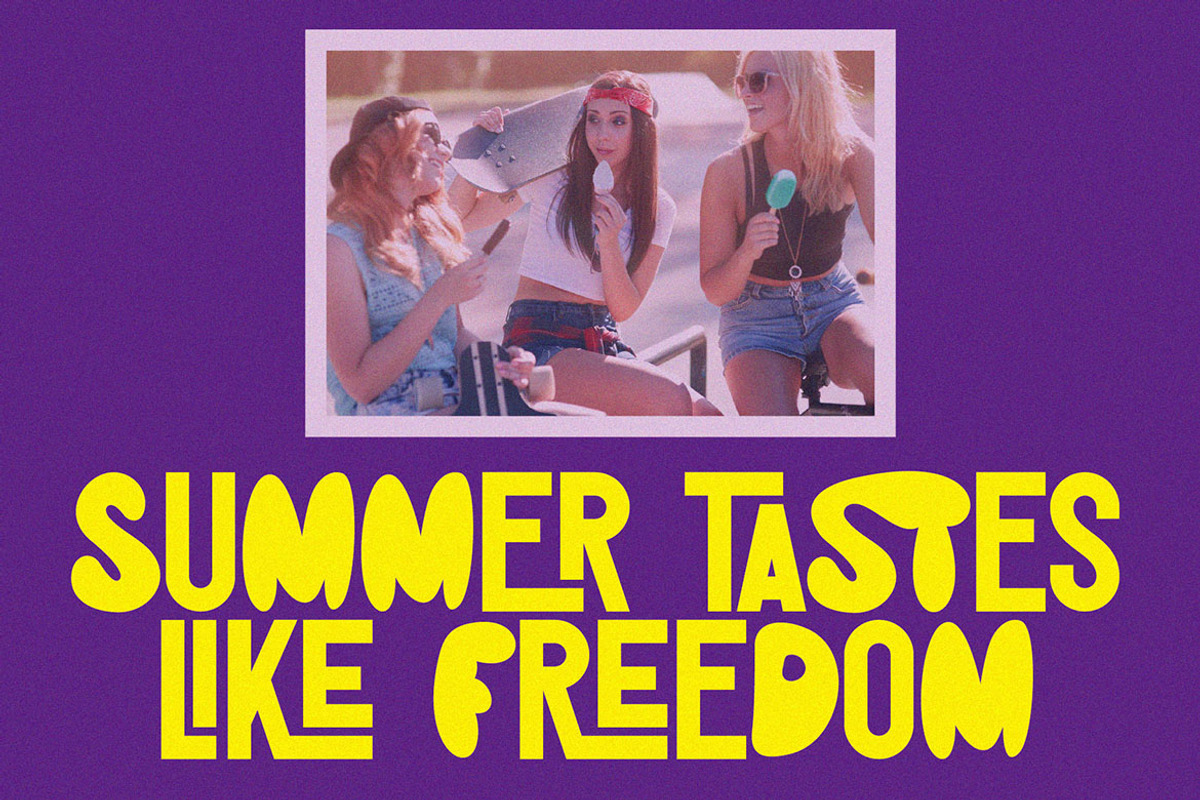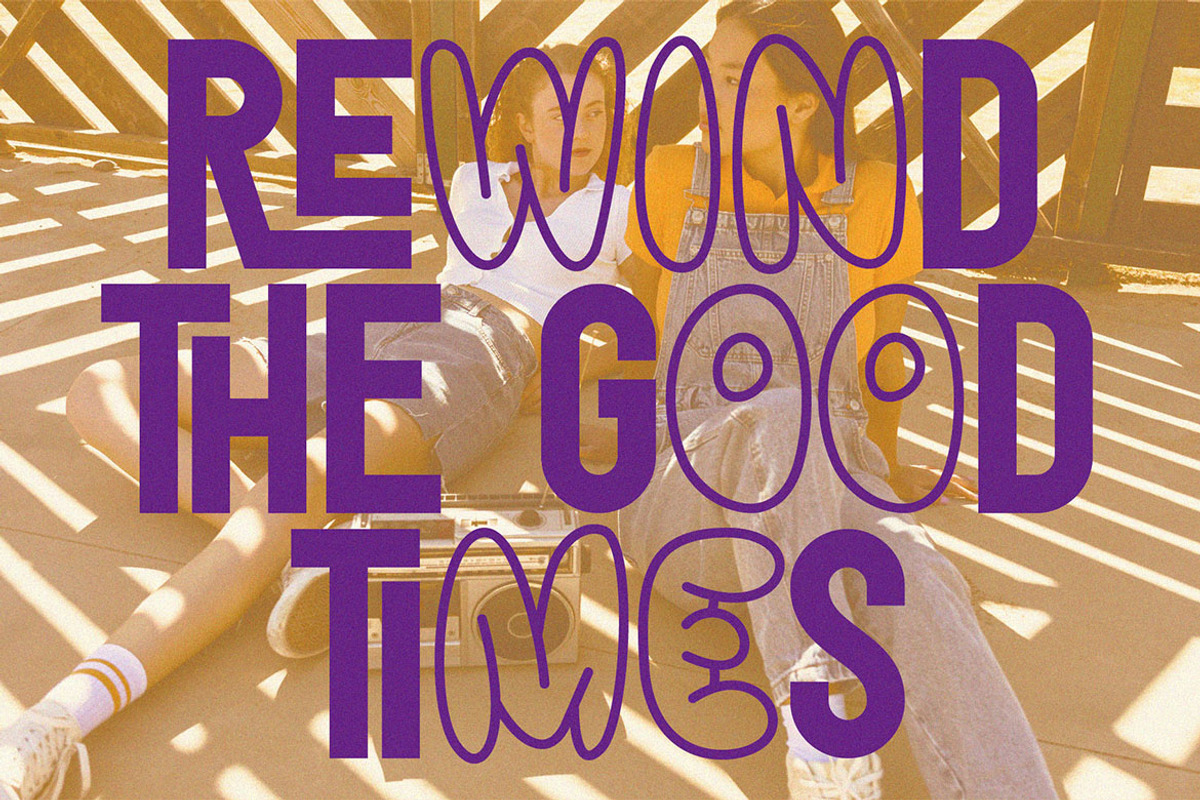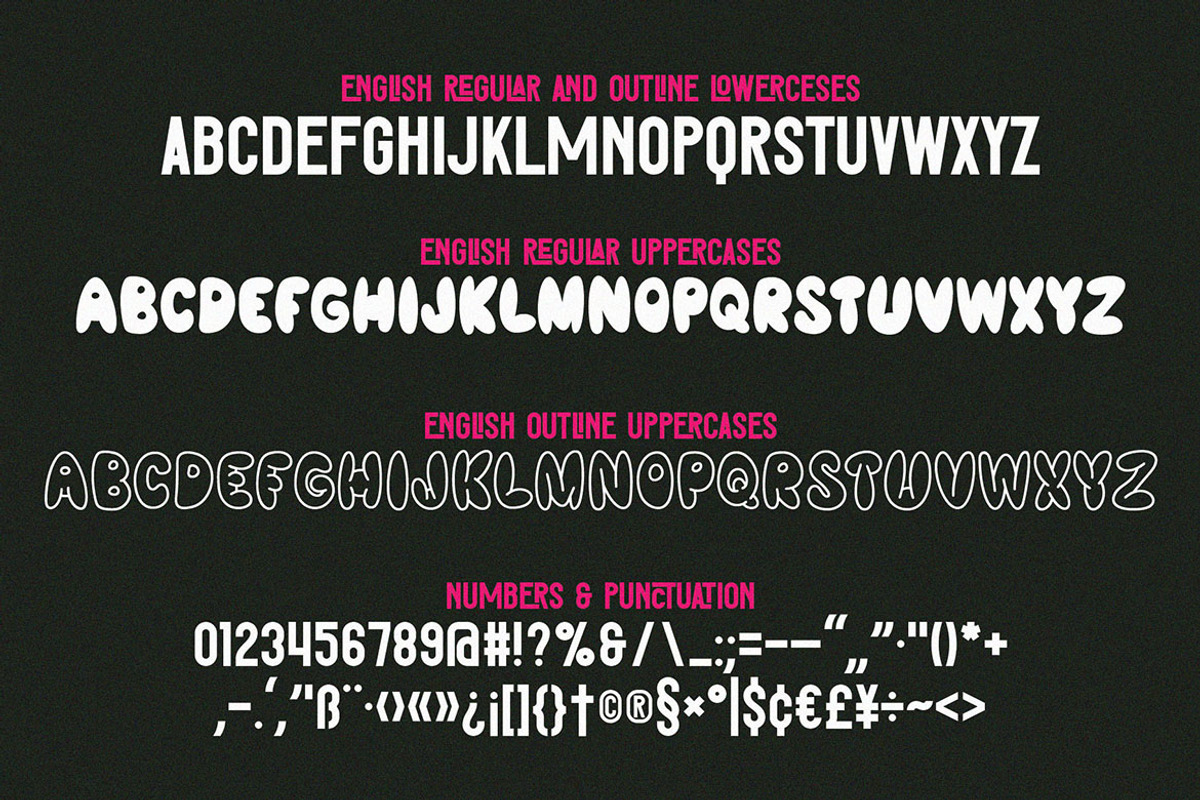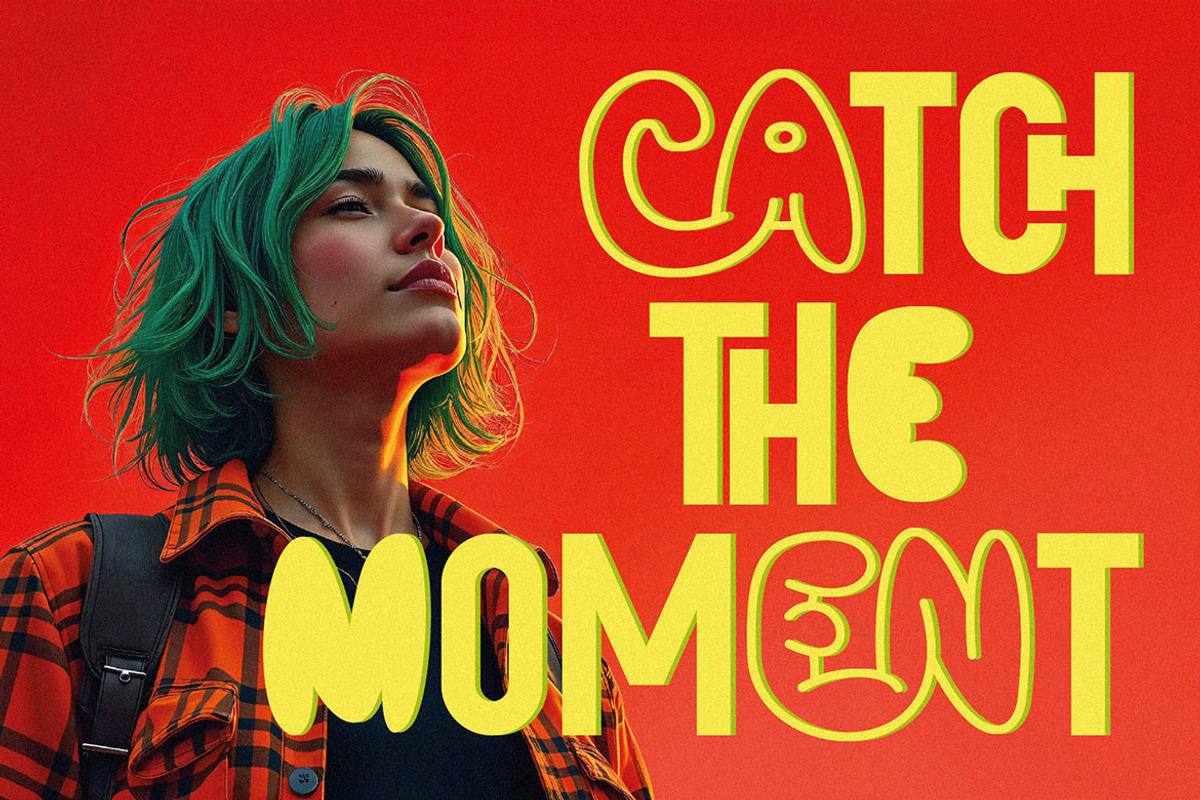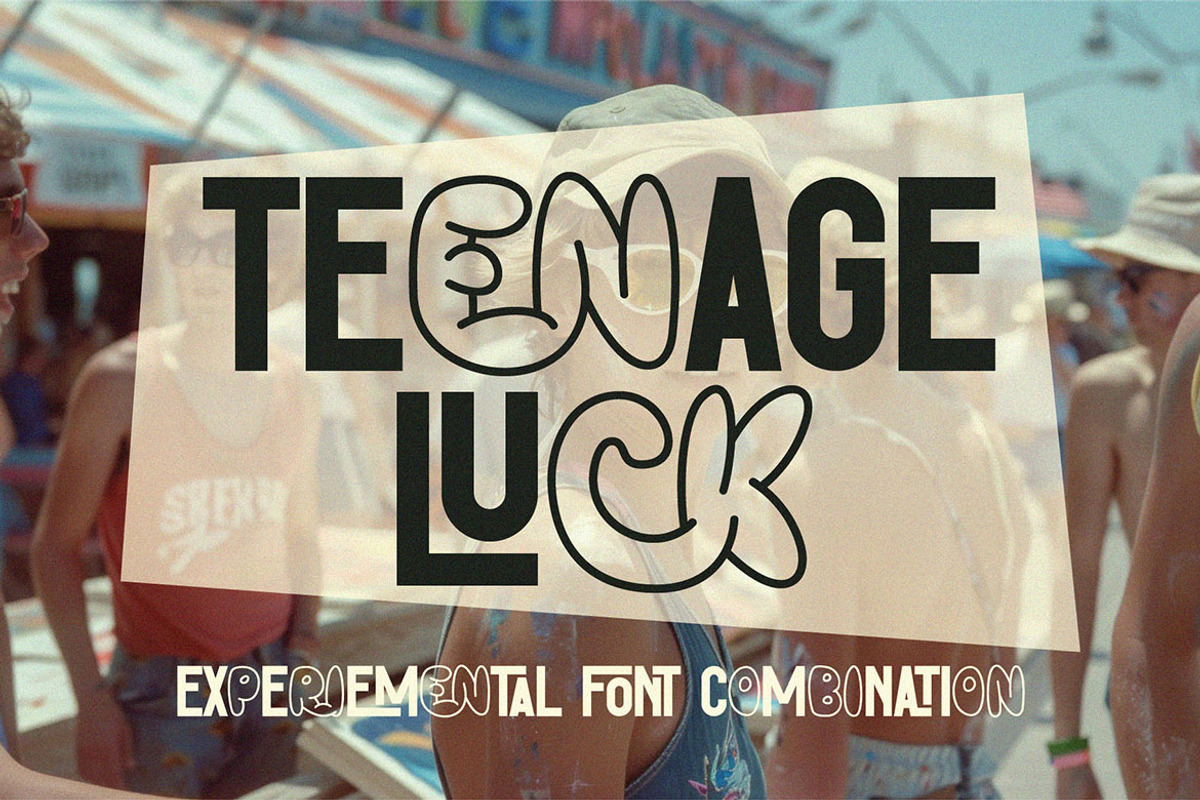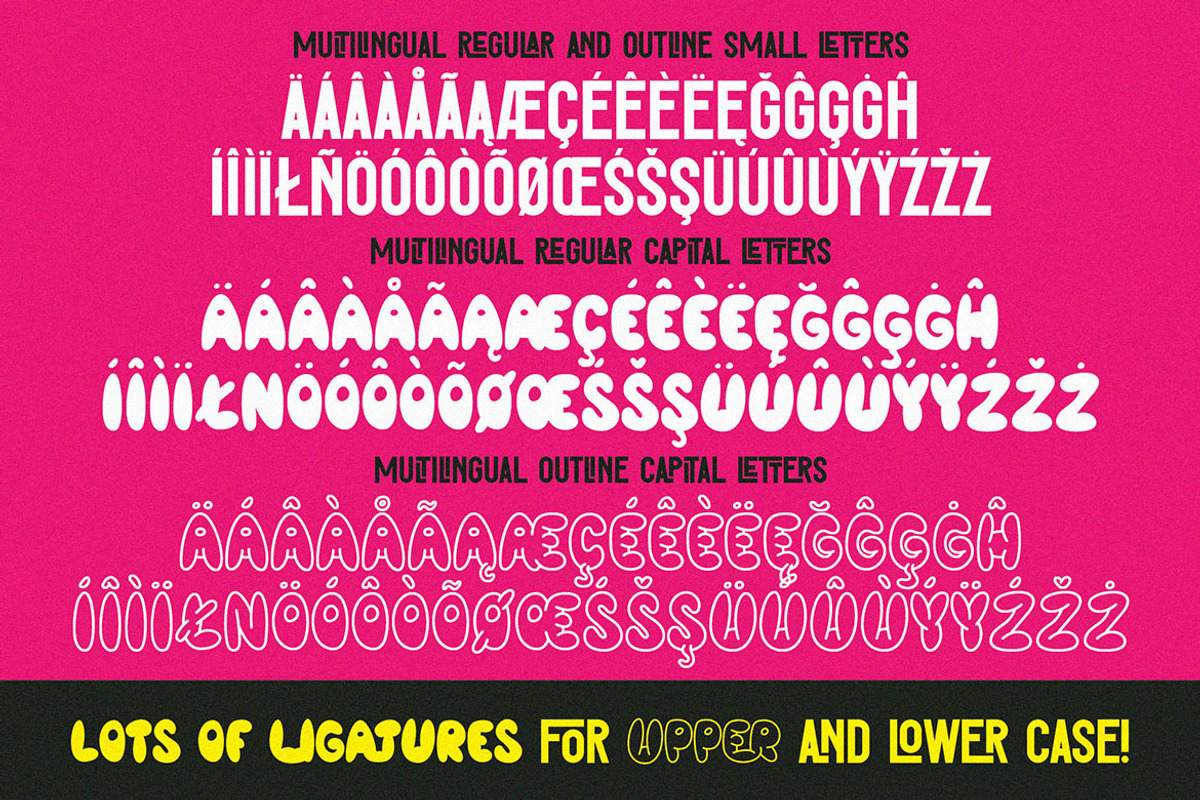
Teenage Luck - Experimental Font
Crazy, playful, funny, casual, simple, urban, experimentsl & sans serif display font. Comes with multilingual support, 2 font versions & lot of ligatures - great for your new logo, monogram or branding project.
- 2 font versions - regular & outline
- lot of ligatures
- Great for your new logo, monogram or branding project